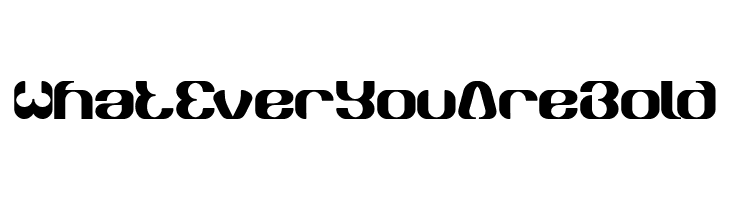
A whimsical and artistic font with playful, irregular strokes and dynamic characters.
A playful, wavy font with bold, irregular strokes and a whimsical style.